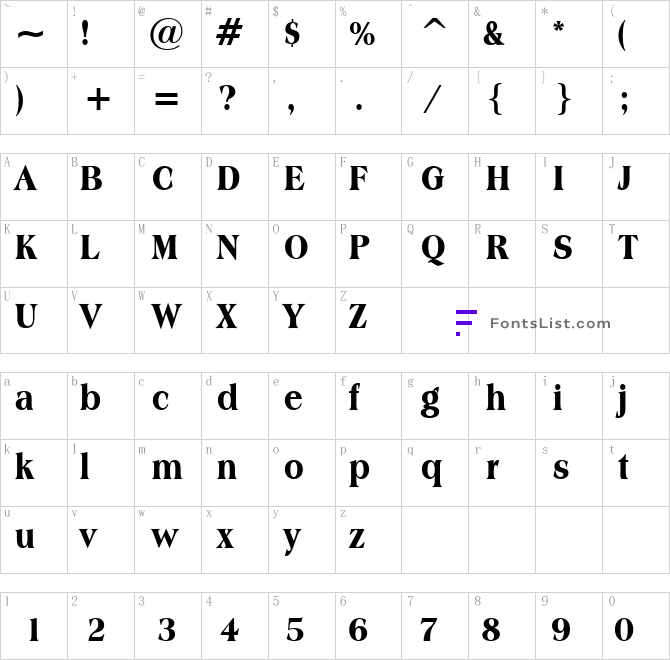
- Font Name:Americana XBdCn BT
Americana-Extra-Bold-Condensed-BT-copy-2-.ttf is a very beautiful artistic font, Americana-Extra-Bold-Condensed-BT-copy-2-.ttf is widely used in the design and printing of various books and pictures,Americana-Extra-Bold-Condensed-BT-copy-2-.ttf has a strong visual impact,Americana-Extra-Bold-Condensed-BT-copy-2-.ttf is a commonly used font in newspapers, magazines and books, and is used in posters, e-commerce Poster design, store design, logo design, font design and other fields.Americana-Extra-Bold-Condensed-BT-copy-2-.